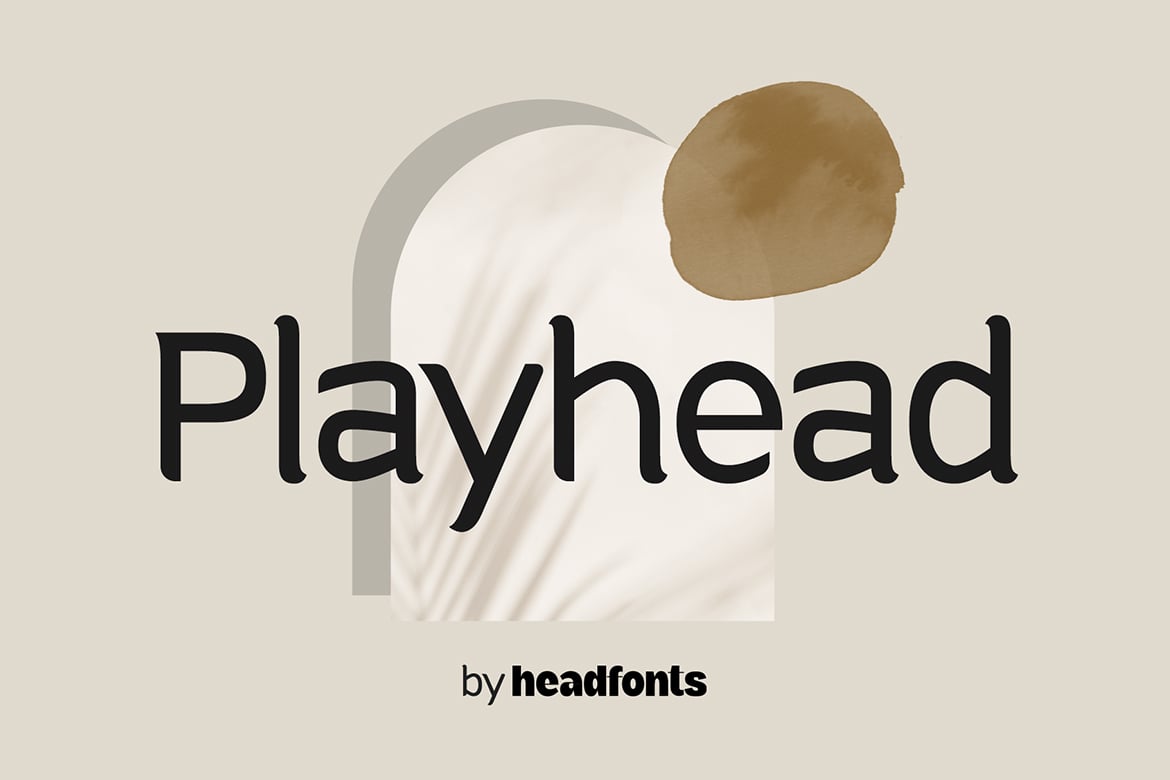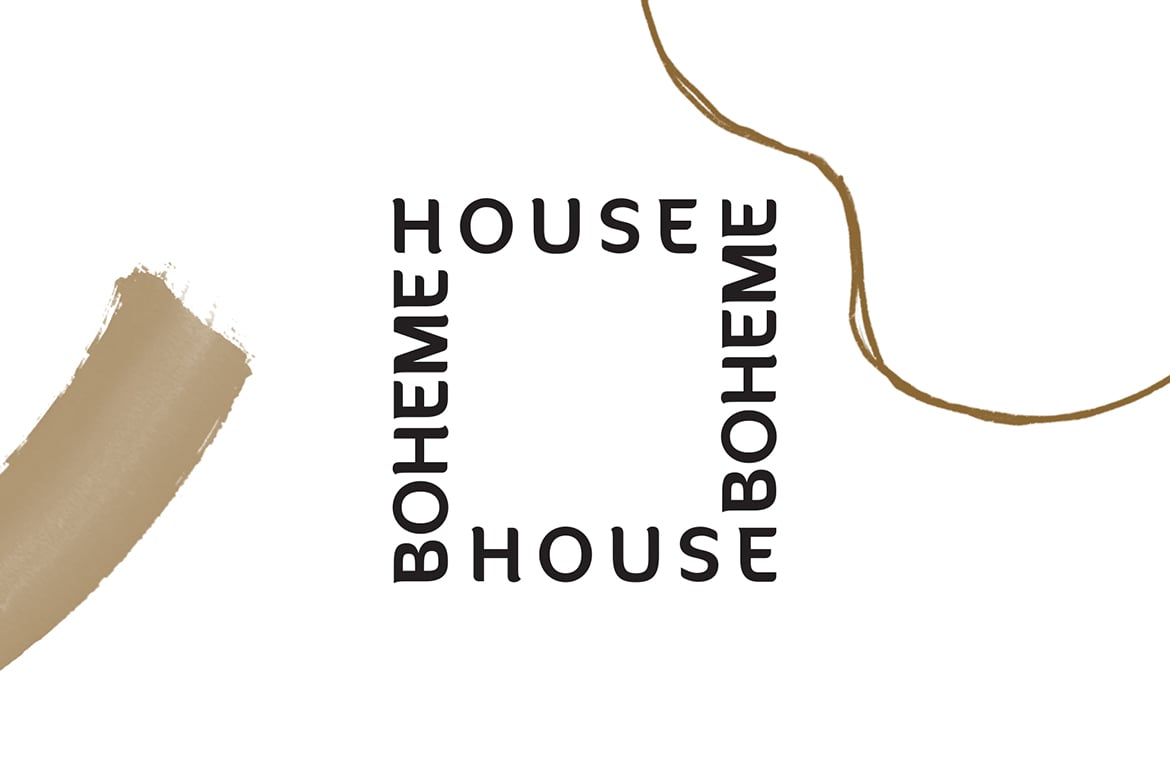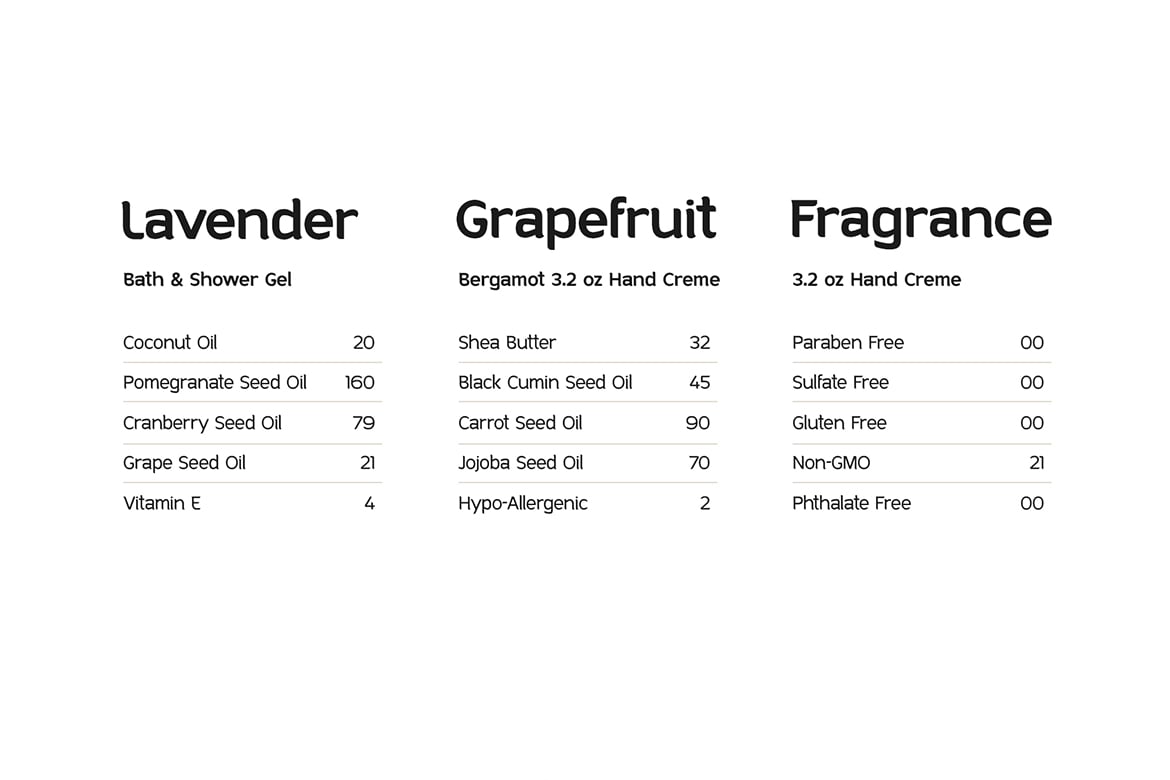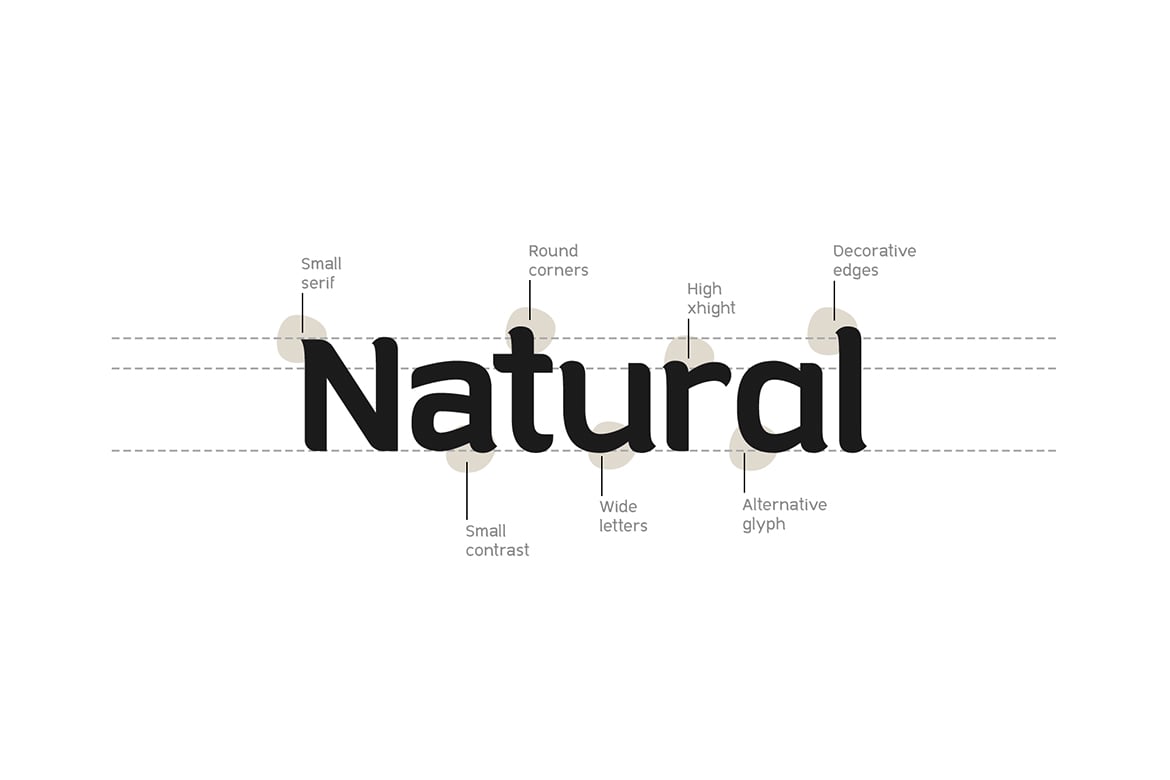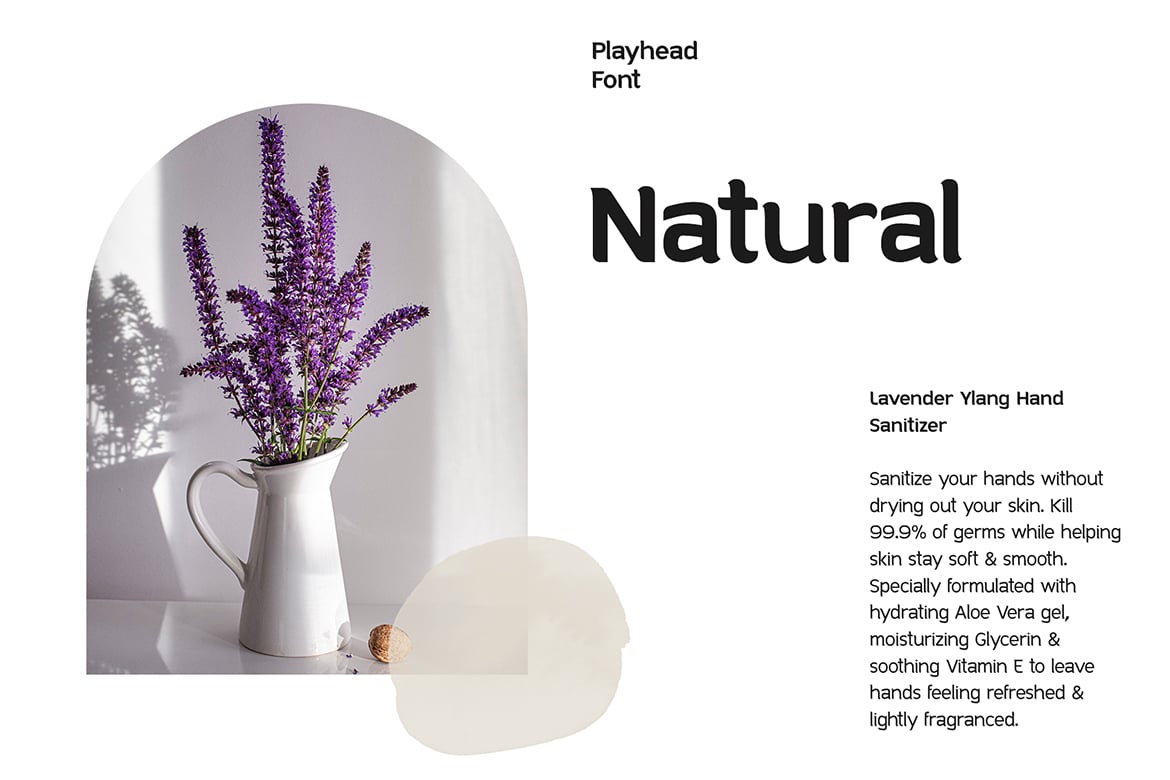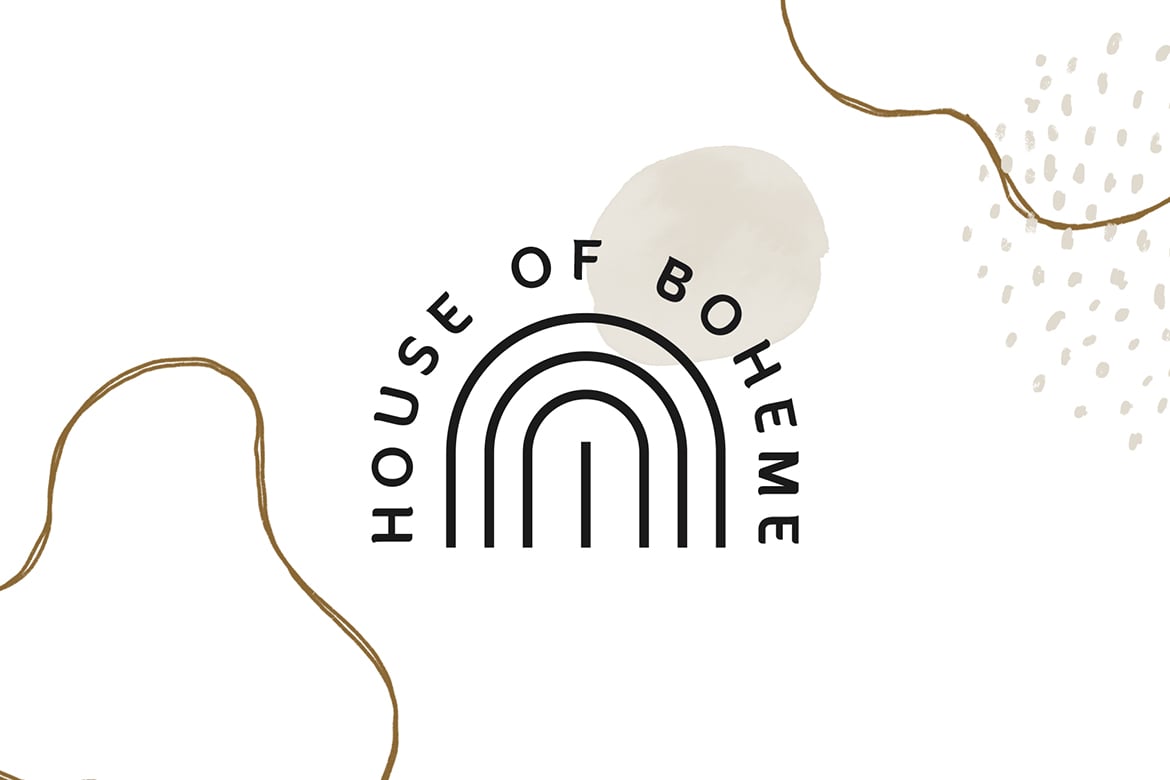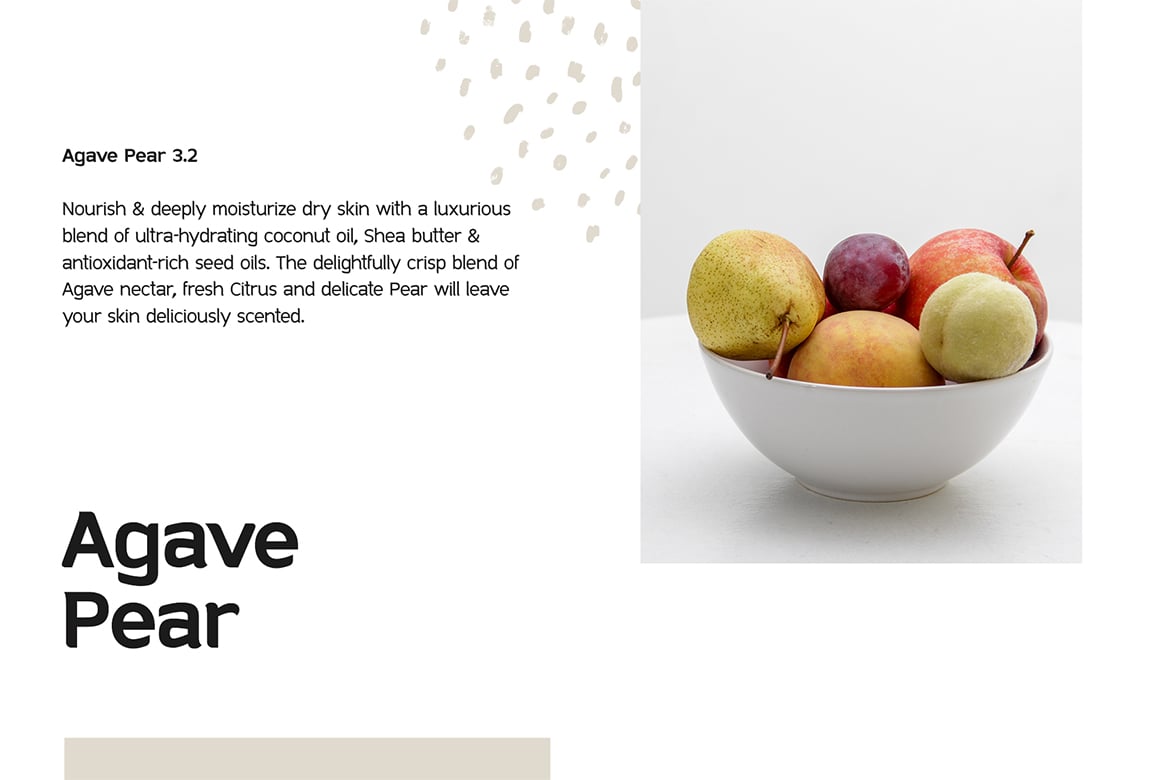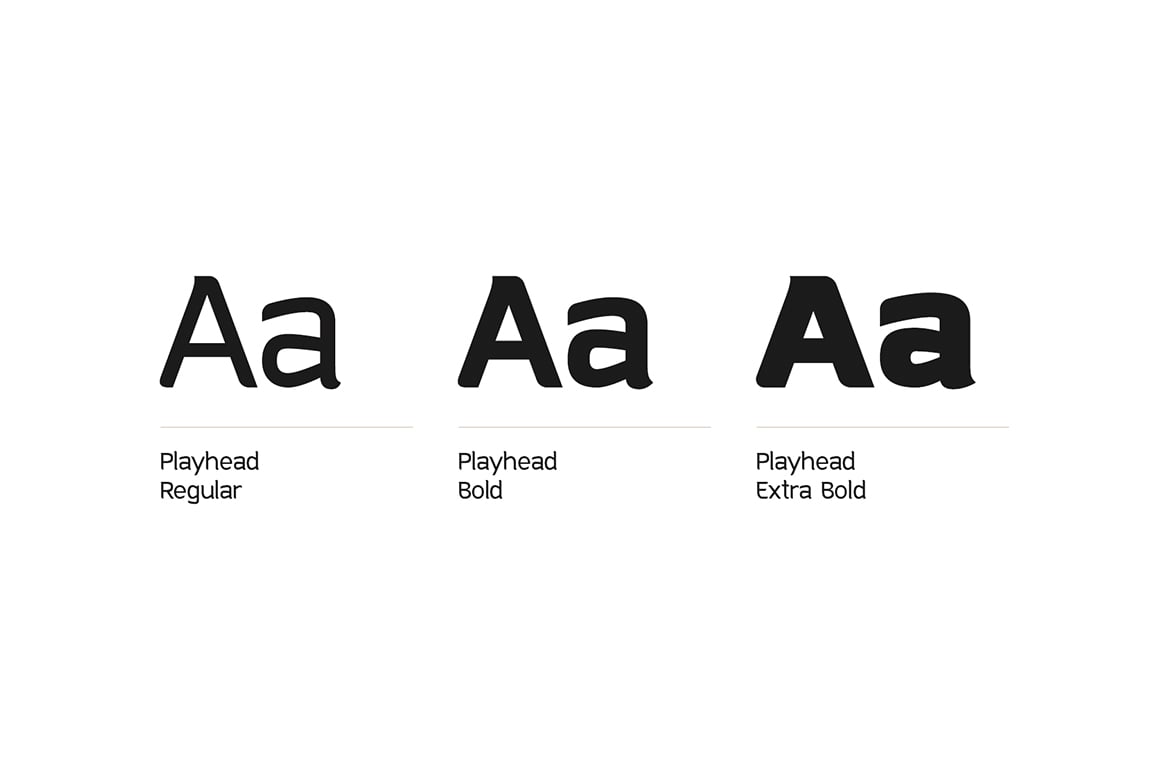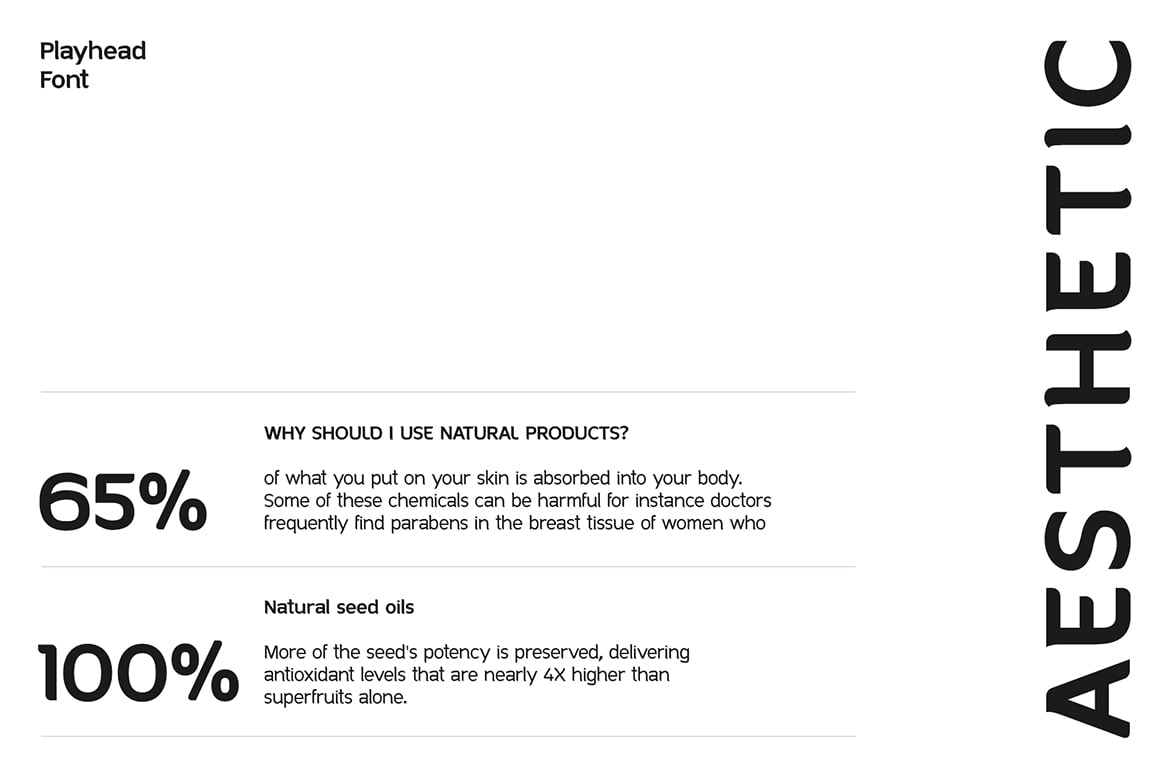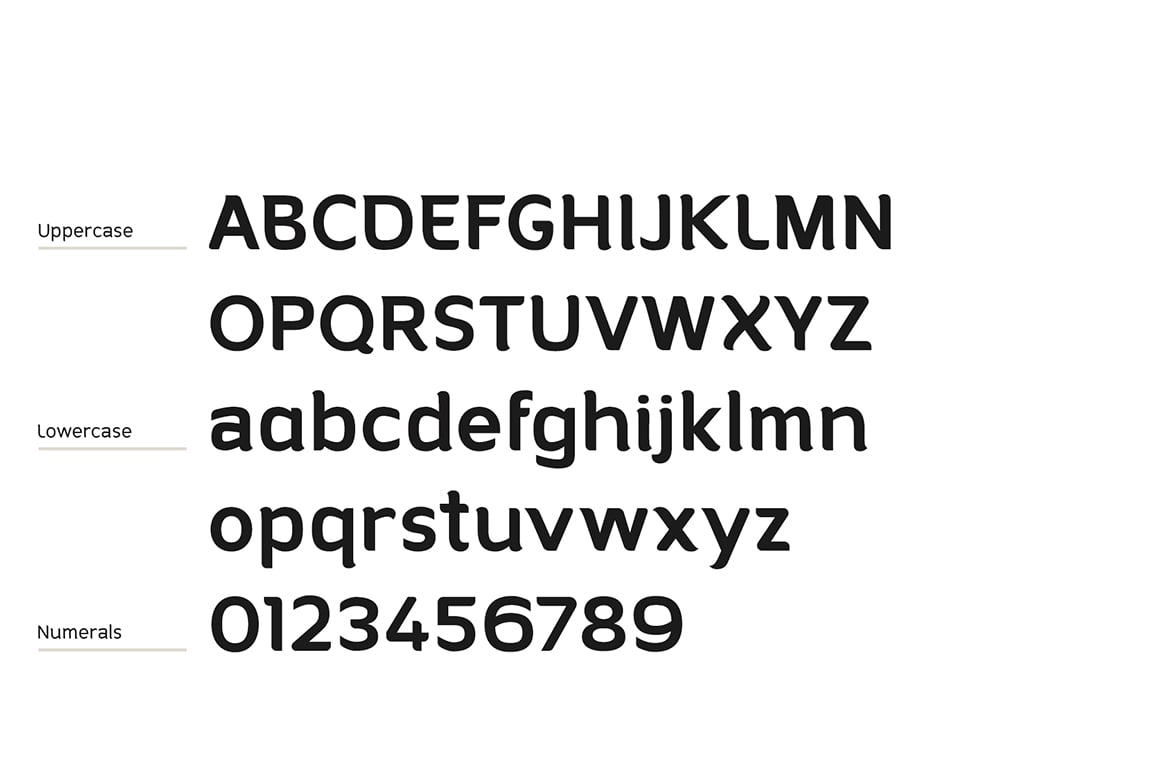
Playhead playful font
PLAYHEAD is a brand new small serif, playful typeface. This font comes in three weights, Playhead Regular, which is free and his chubbier other two alternatives Playhead Bold and Extrabold. This font was designed to be decorative, natural and versatile with a jolly touch, that`s why its characters have rounded corners and a small decorative serif simulating pen strokes. Playhead has uppercase and lowercase characters, a number of 63 glyphs per each font and standard Latin script support with numerals. You can use Playhead for almost any design project that requires a playful, handmade appearance. From posters, headers and logos to menus, but it can also be used for small articles and occasional texts. Get Playhead today and be playful!